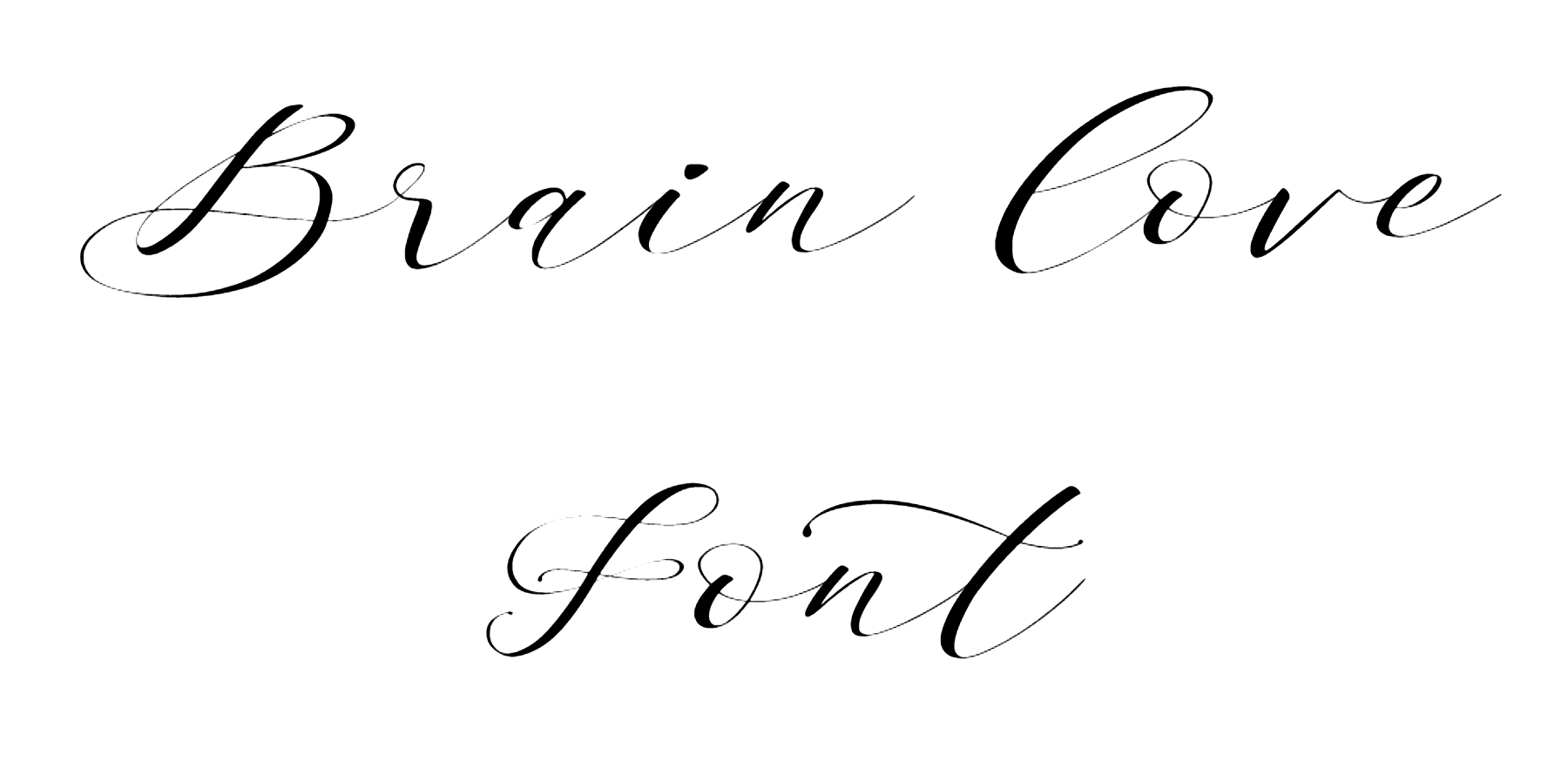
Brain love Font Preview
Brain love
Brain love is a calligraphy font made by Aldedesign (2018). The letters have the smooth movement of real pen lettering, which is why even a single name looks special in it. It's a free download, and you can try it with your own text in the preview above first.
- Designer: Aldedesign
- Glyphs: 500
- OpenType features: Ligatures, swashes, stylistic alternates and 3 stylistic sets
- Extra characters: 262 copy-and-paste alternates (Private Use Area)
What You Can Type With Brain love
With complete upper and lowercase letters and all ten digits, Brain love is ready for real wording, not just a single headline. Common punctuation such as &, !, ? and @ is included as well. It also has the accented letters you need for Spanish, French, German, Portuguese and Italian.
Where Brain love Works Best
Think of Brain love for wedding invitations, certificates and elegant quotes. Its lowercase letters are small compared to the capitals, so set it a size or two bigger than usual. Script fonts read best in short bursts, so keep it to names, titles and one-line quotes. Skip all caps: script capitals are drawn to start a word, not to fill one.
Who designed Brain love font?
Does Brain love support accented letters?
Yes. Brain love includes the accented letters needed for Spanish, French, German, Portuguese and Italian, so it works for more than just English.